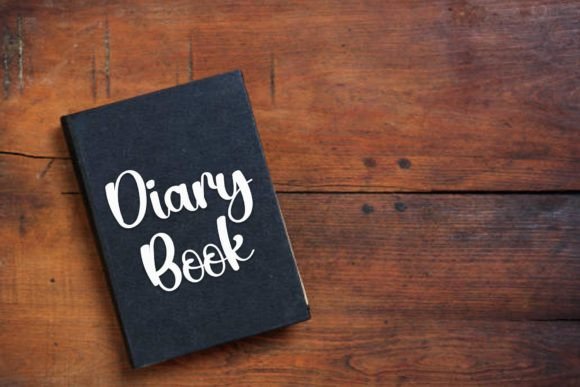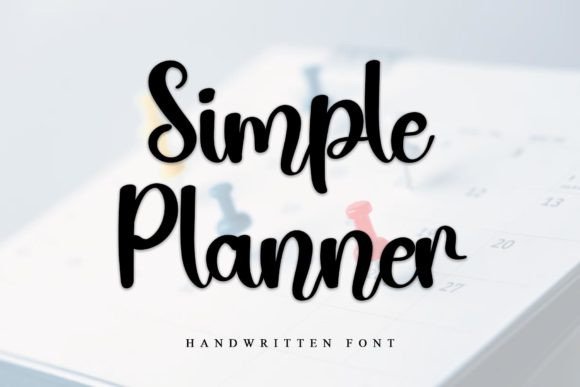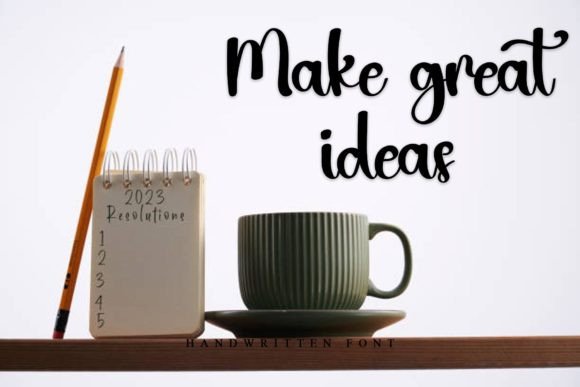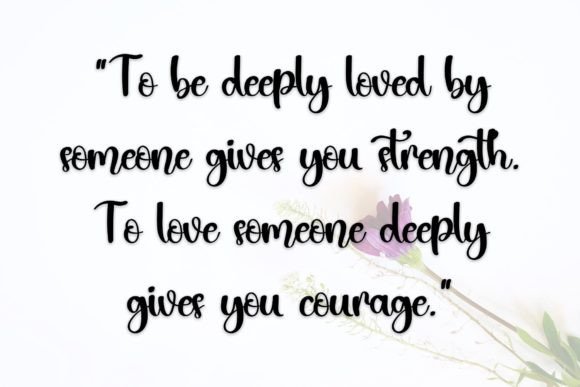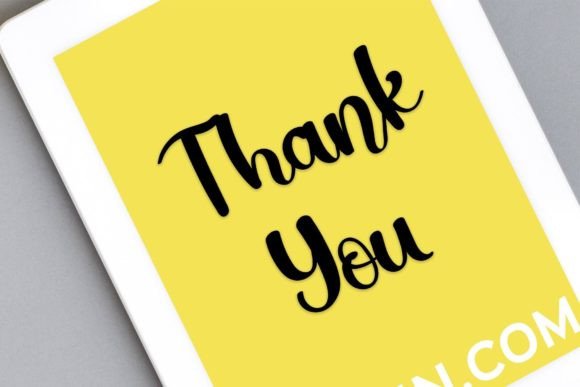
Introducing Daily Life Font: Elevate Your Designs with Timeless Elegance
In the world of typography, a well-crafted font can make all the difference in transforming a design from ordinary to extraordinary. For designers and crafters seeking a stylish and contemporary handwritten font, Daily Life Font is an exceptional choice. Inspired by timeless classic calligraphy, this beautiful font brings a touch of sophistication and elegance to any project.
The Story Behind Daily Life Font
Daily Life Font is a carefully crafted handwritten font that exudes a sense of refinement and poise. Its design is rooted in the principles of classic calligraphy, yet it boasts a modern twist that sets it apart from traditional fonts. The result is a typography that feels both nostalgic and fresh, making it perfect for a wide range of applications.
Key Features of Daily Life Font
- Contemporary Atmosphere: Daily Life Font features a sleek and modern design that instantly elevates the visual appeal of any project.
- Impeccable Form: The font’s precise and balanced letterforms ensure that your text is always legible and visually appealing.
- Balanced and Varied: With a range of characters and glyphs, Daily Life Font offers a high degree of versatility, allowing you to experiment with different styles and effects.
- Handwritten Charm: The font’s handwritten nature adds a touch of warmth and personality to your designs, setting them apart from more formal typography.
Why Choose Daily Life Font?
For designers and crafters seeking a font that can add a touch of sophistication to their work, Daily Life Font is an excellent choice. Here are just a few reasons why:
- Universal Appeal: The font’s timeless design ensures that it will remain relevant for years to come, making it a valuable addition to your typography collection.
- Versatility: Daily Life Font can be used for a wide range of projects, from branding and advertising to packaging and digital media.
- Easy to Read: The font’s clear and legible letterforms make it perfect for body text, headings, and titles.
- Customizable: With a range of glyphs and characters, you can experiment with different styles and effects to create a unique look that suits your brand or project.
Using Daily Life Font in Your Designs
Daily Life Font is incredibly easy to use and can be integrated into your designs in a variety of ways. Here are a few ideas to get you started:
- Branding and Identity: Use Daily Life Font to create a unique and memorable brand identity that sets you apart from the competition.
- Digital Media: Add a touch of elegance to your website, social media, or digital advertising with this beautiful font.
- Packaging and Print: Use Daily Life Font to create eye-catching packaging, business cards, or marketing materials that showcase your brand’s personality.
- Crafting and DIY: Add a personal touch to your crafting or DIY projects with Daily Life Font, perfect for creating unique and personalized gifts or decorations.
Daily Life Font is a stunning handwritten font that brings a touch of timeless elegance to any design. With its impeccable form, balanced and varied characters, and contemporary atmosphere, this font is perfect for designers and crafters seeking to elevate their projects. Whether you’re working on branding, digital media, packaging, or crafting, Daily Life Font is an exceptional choice that is sure to impress.